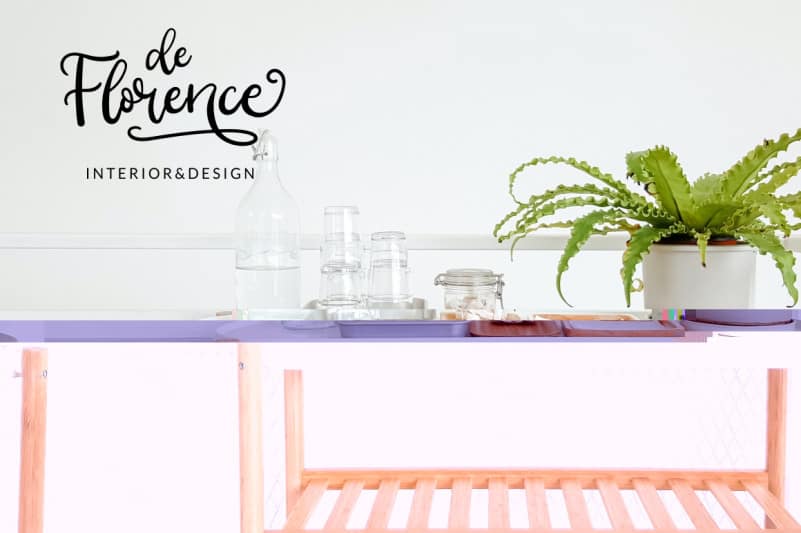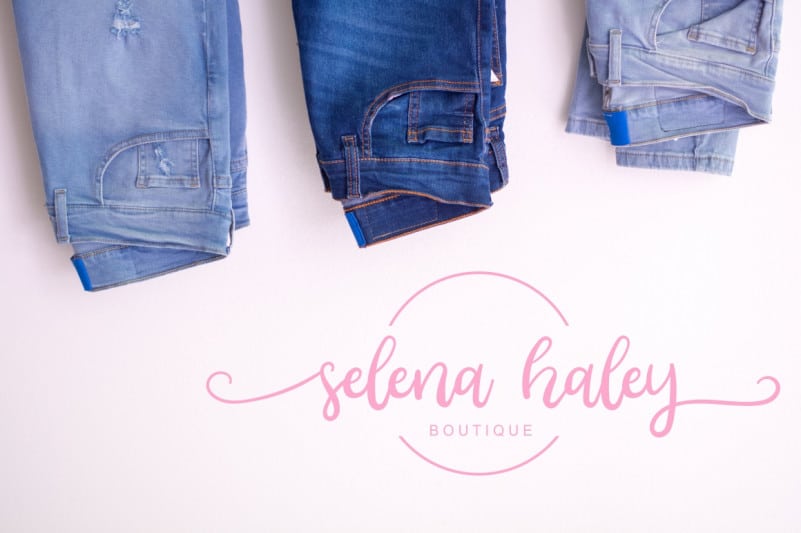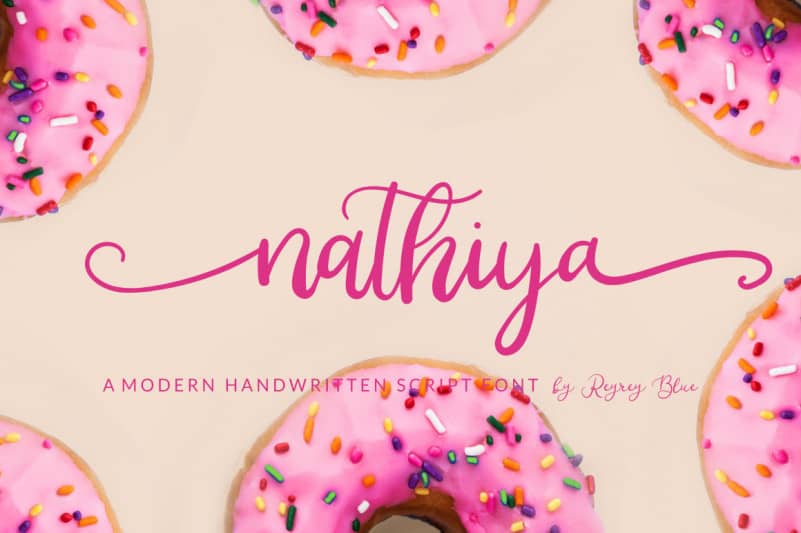
Introducing – Nathiya Script Font is lovely and beautiful script typeface that designs manually by hand and love. Very suitable in use Like blog header, branding, t-shirt, wedding, social media, product design, stationery, advertising, clothing, book cover, business cards, greeting cards, branding, merchandise, invitations and handmade quotes.